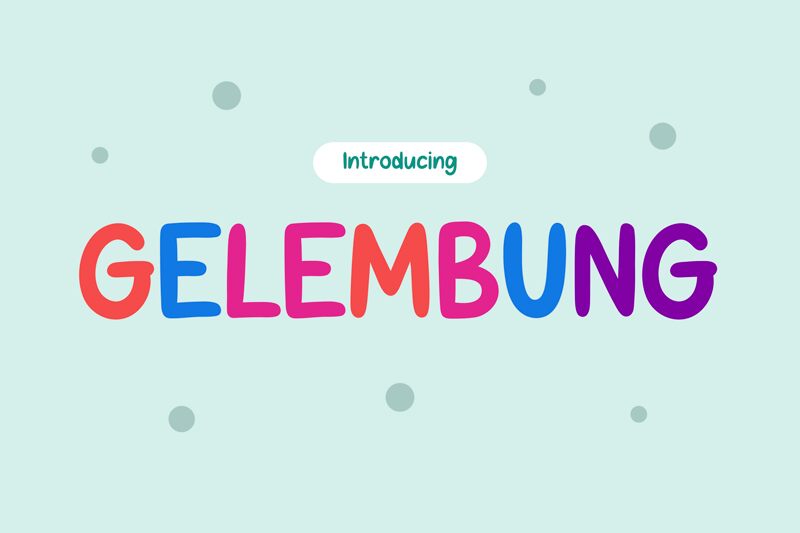
Gelembung font by Pinisiart is a free handwritten font that blends casual charm with a modern flair. Its smooth, vibrant design brings a cheerful and approachable touch to your text, creating a friendly and lively atmosphere. This versatile and rounded font fits perfectly into a variety of design contexts, whether you're aiming for a modern or lighthearted aesthetic.
The font is perfect for playful invitations, greeting cards, blogs, personal branding, or social media posts. Use it to add a bubbly vibe to t-shirt designs, posters, logos, or website headers where a casual and engaging feel is desired.